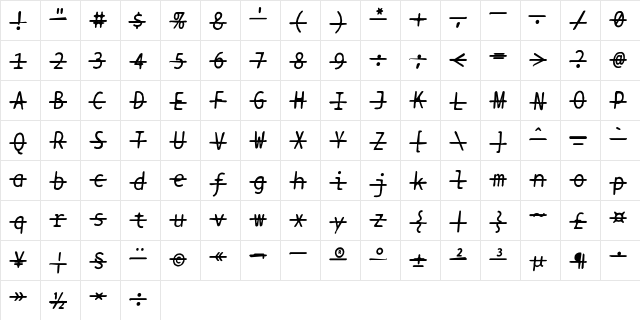
BPtypewriteDamagedStrikethrough Italic
Design Context for BPtypewriteDamagedStrikethrough Typeface
BPtypewriteDamagedStrikethrough embraces imperfection — its rough, textured character adds raw authenticity to designs that want to feel lived-in and unconventional. The slanted form adds forward momentum and visual energy.
A strong fit for alternative music projects, graffiti-adjacent design, and anything that deliberately resists polish.
Pro Tip: Use BPtypewriteDamagedStrikethrough at larger sizes where the texture and irregularity of each letterform can be clearly seen — it loses its character at small sizes.